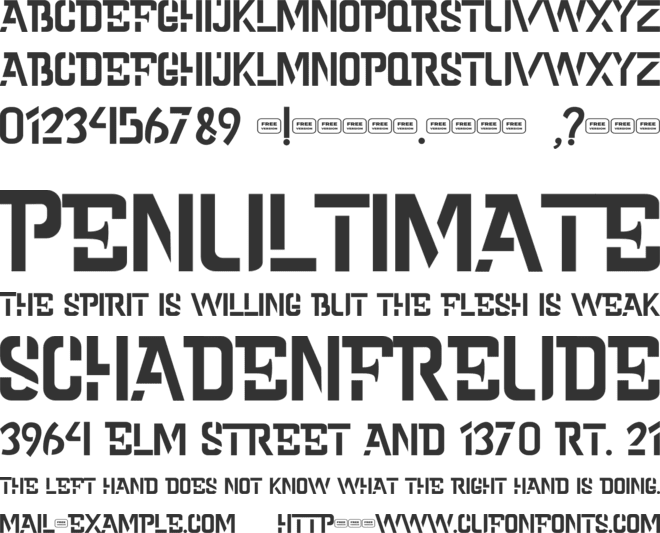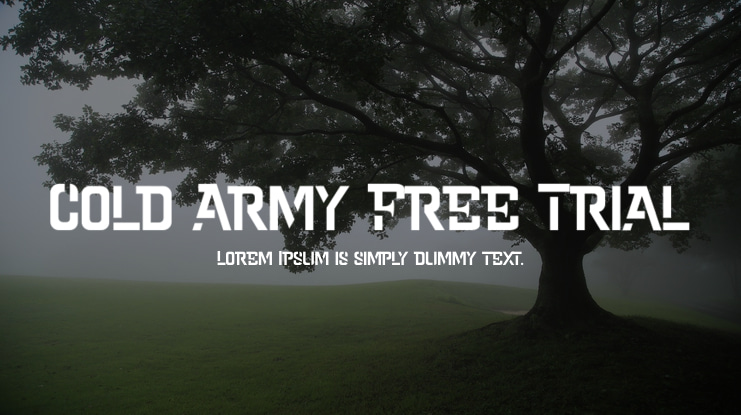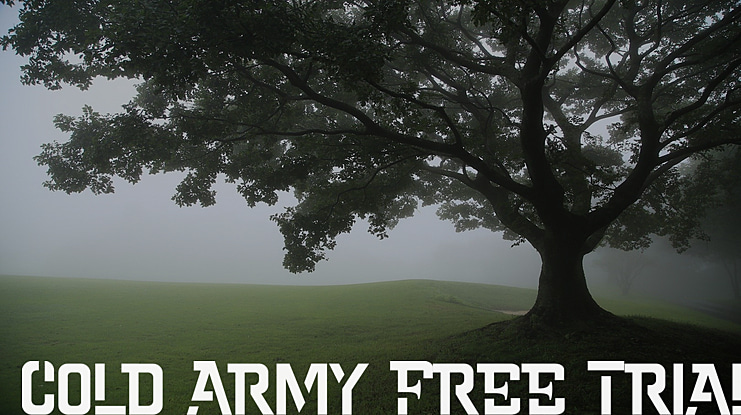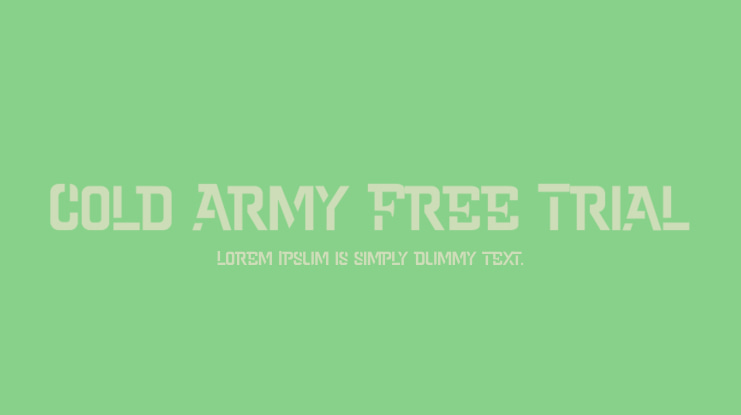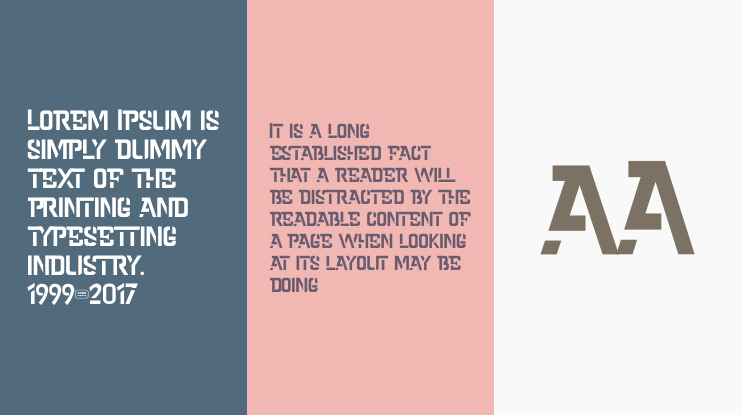
Cold Army Free Trial Font
Cold Army is a stencil display font.
Strong and delicate it makes a statement when used.
Use this font for your designs and explore its endless possibilities.